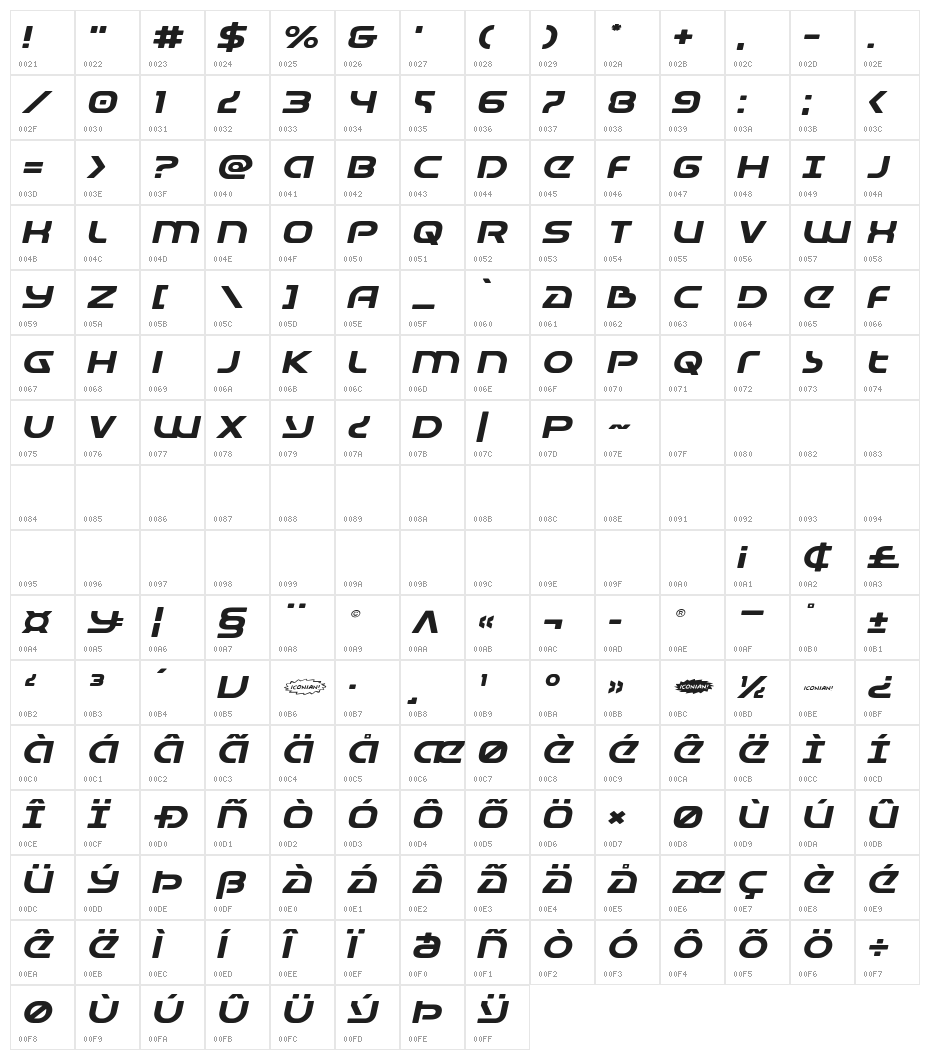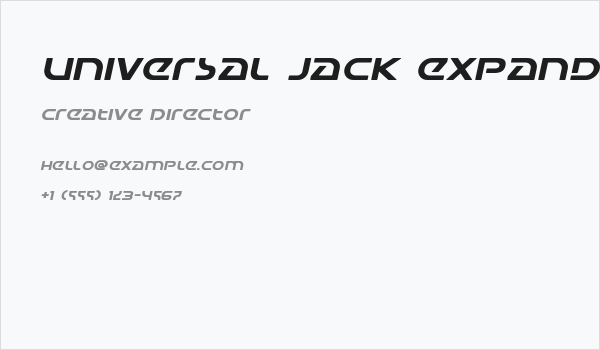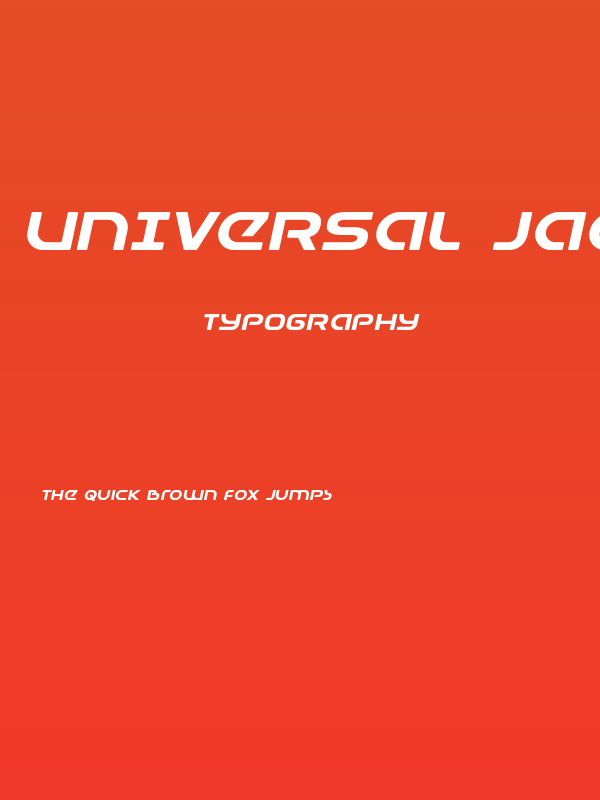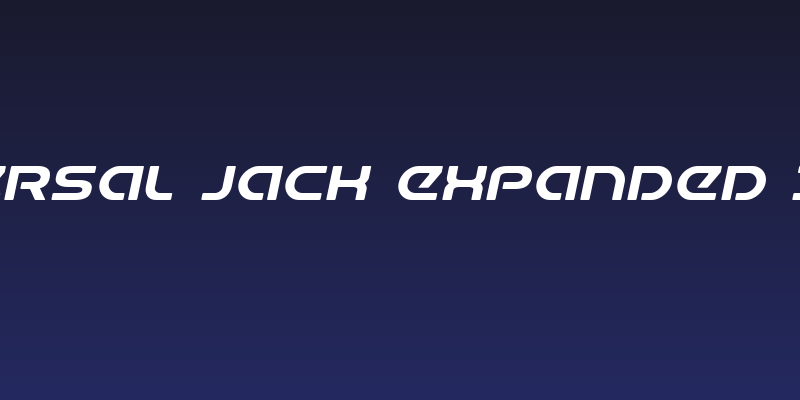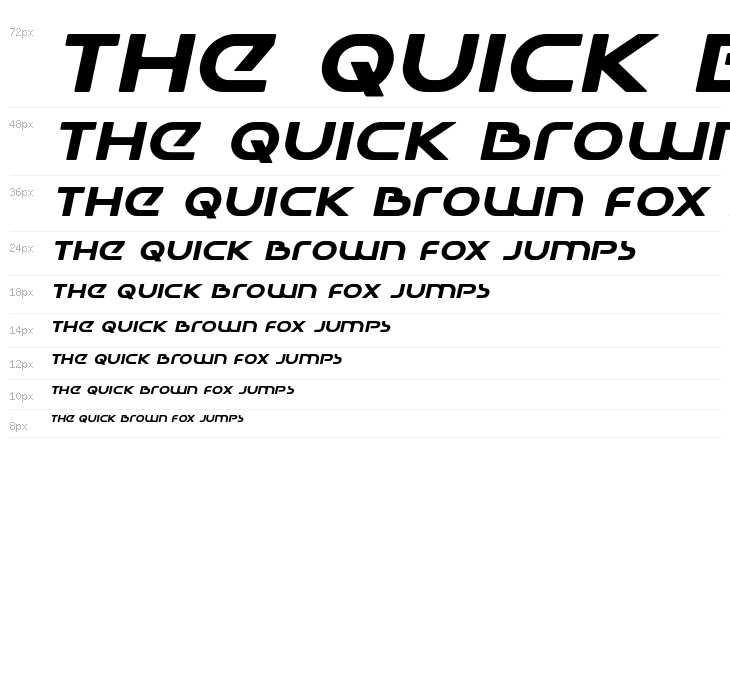
Universal Jack Expanded Italic Font
Universal Jack Expanded Italic Description
This font features a dynamic and modern design with an expanded and italicized style. The characters are bold and have a futuristic appeal, making them stand out with their unique slanted form. The strokes are consistent in thickness, providing a uniform appearance across all characters. The expanded width gives it a spacious feel, while the italic angle adds a sense of motion and speed. The font maintains a clean and legible look, suitable for various design applications. Its geometric shapes and smooth curves contribute to its contemporary aesthetic.